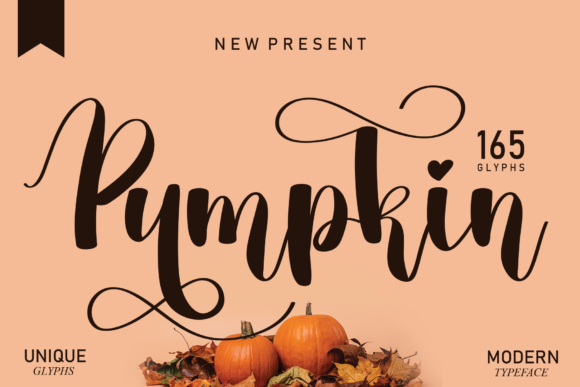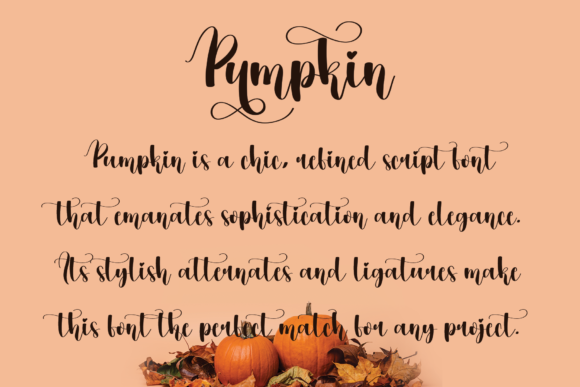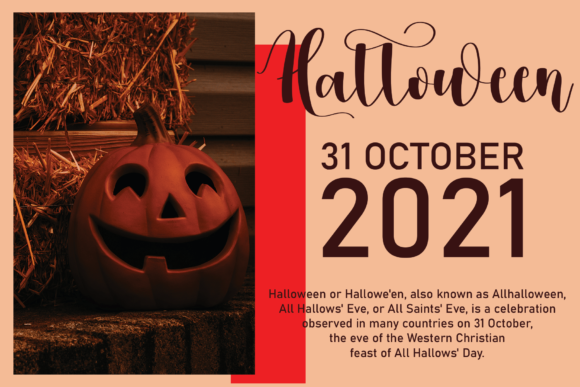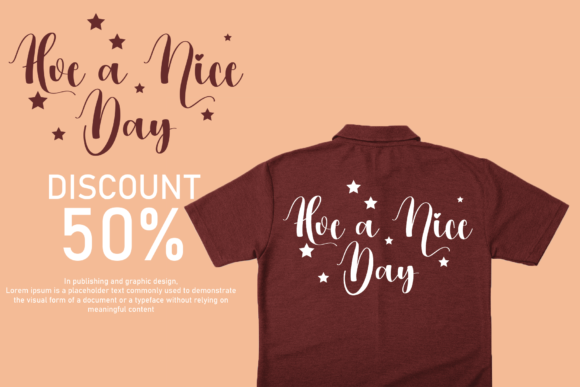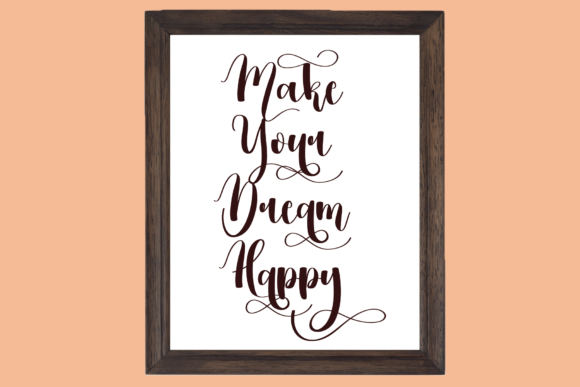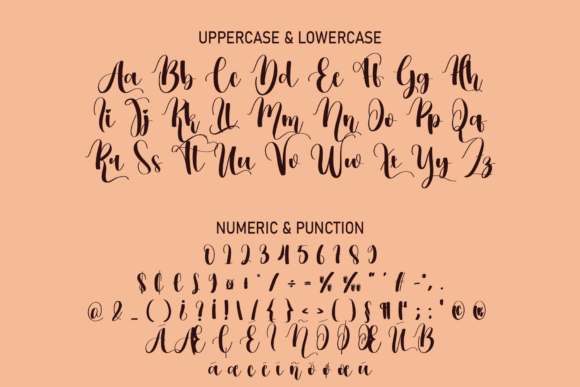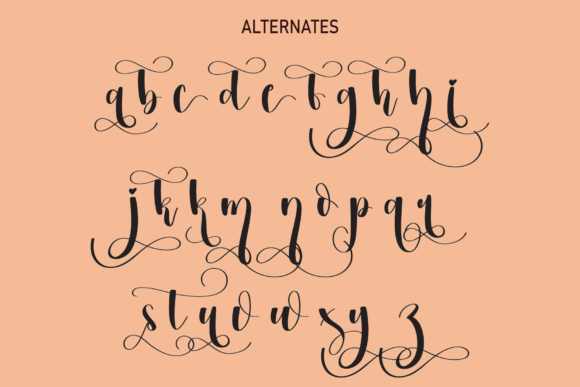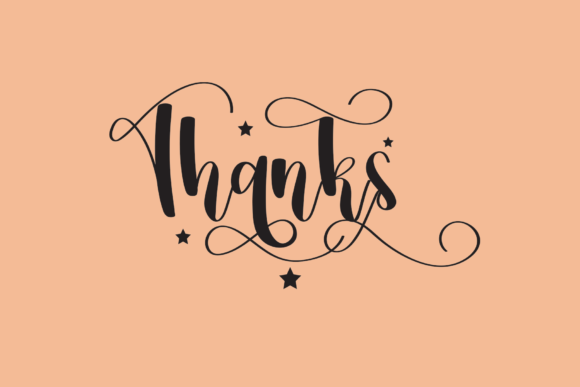
Pumpkin Font
About Pumpkin Font
Pumpkin is a romantic and sweet calligraphy typeface with characters that dance along the baseline. It will add a luxury spark to any design project that you wish to create! This font is PUA encoded which means you can access all glyphs and swashes with ease!